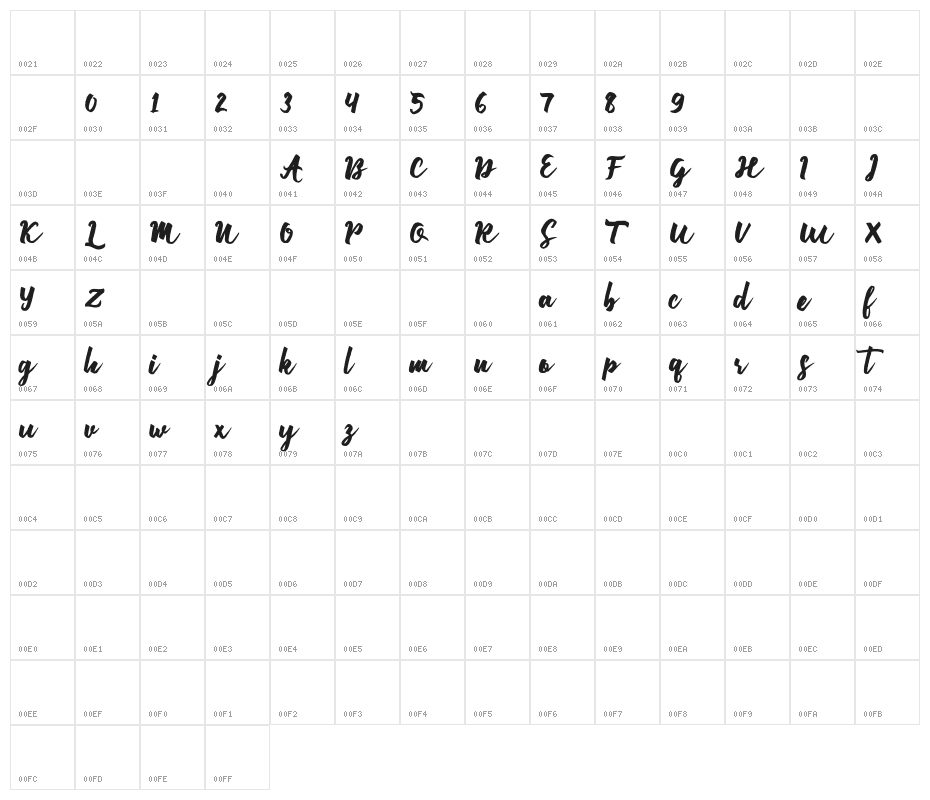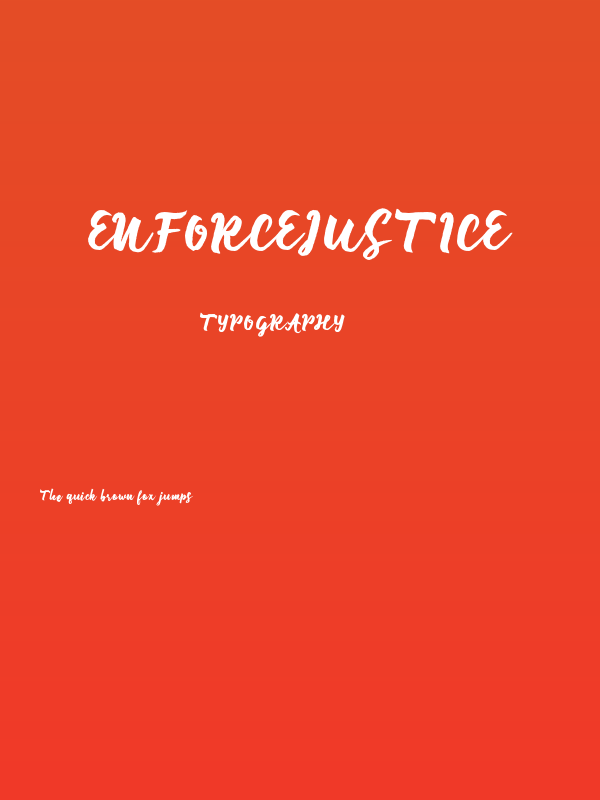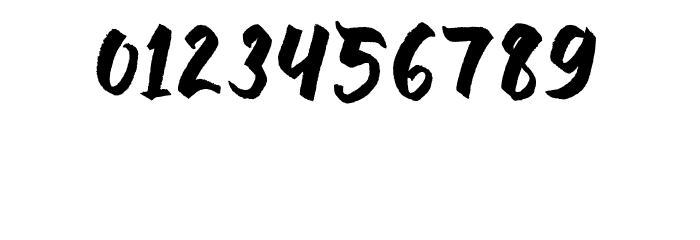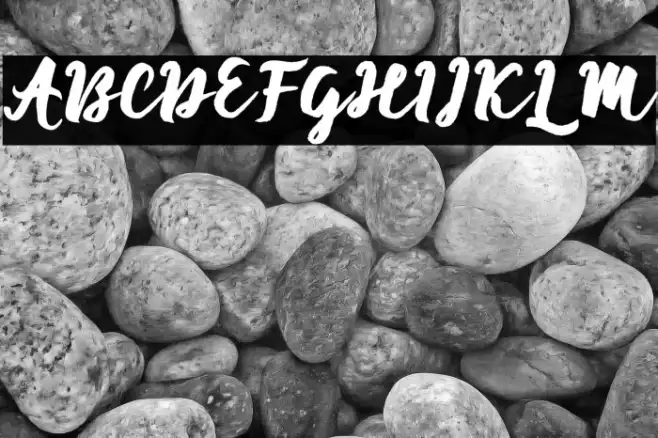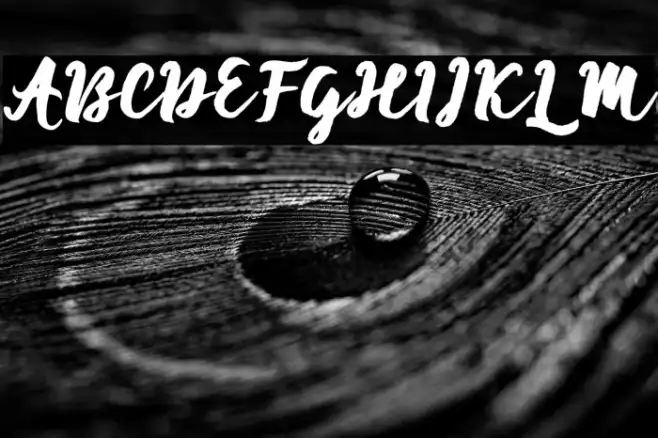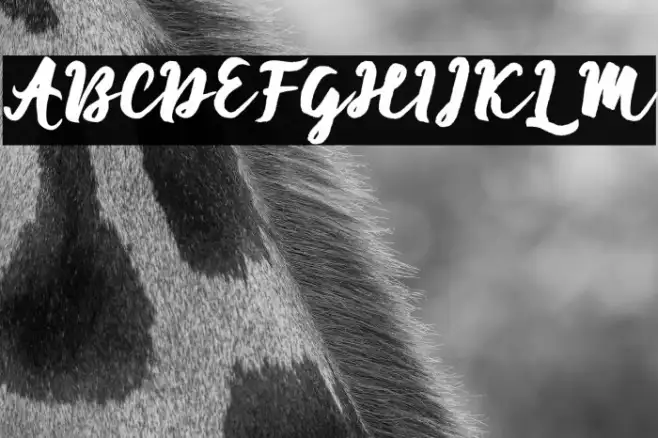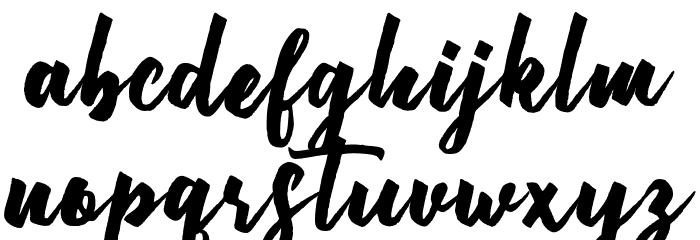
EnforceJustice Font
EnforceJustice Description
This font features a bold and expressive script style with a hand-drawn appearance. The characters are fluid and connected, giving a sense of movement and elegance. The uppercase letters are slightly more elaborate, while the lowercase letters maintain a consistent flow. The numbers and special characters are designed to match the overall aesthetic, providing a cohesive look. The strokes are thick, contributing to a high contrast that enhances readability while maintaining an artistic flair. This font is perfect for projects that require a personal touch or a creative, informal vibe.
| Proposed Projects | Ideal for invitations, greeting cards, branding, and creative projects requiring a personal touch. |